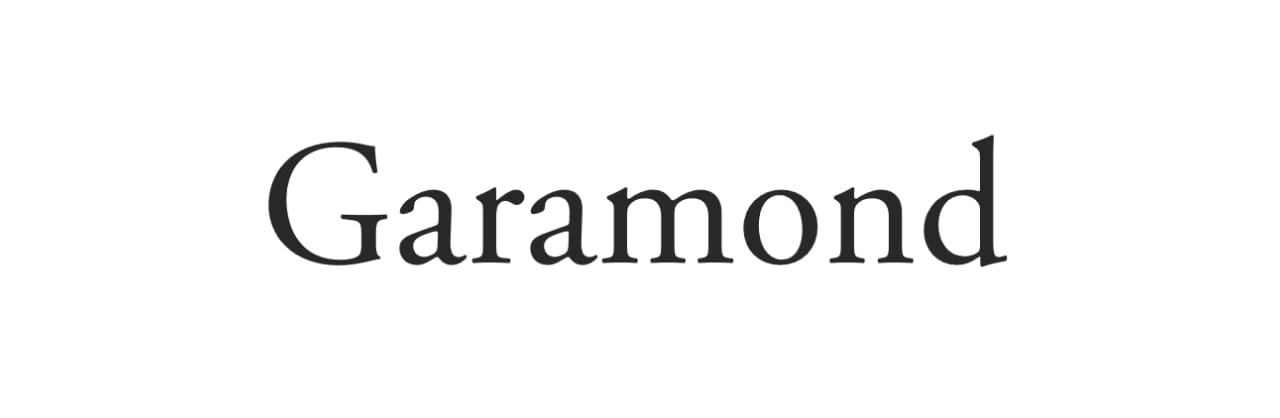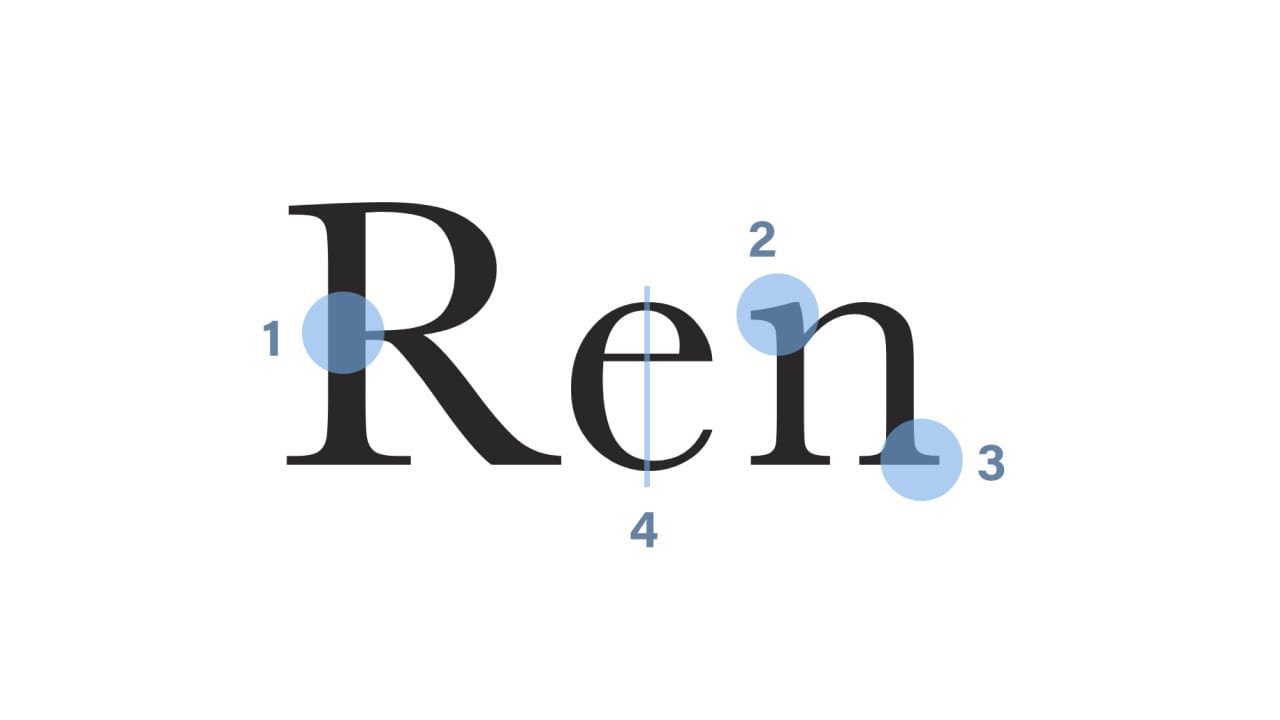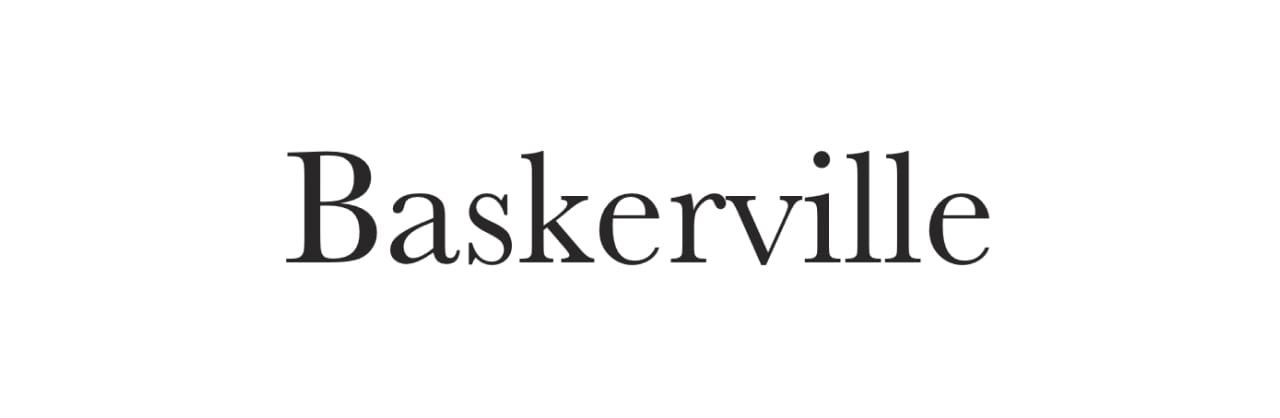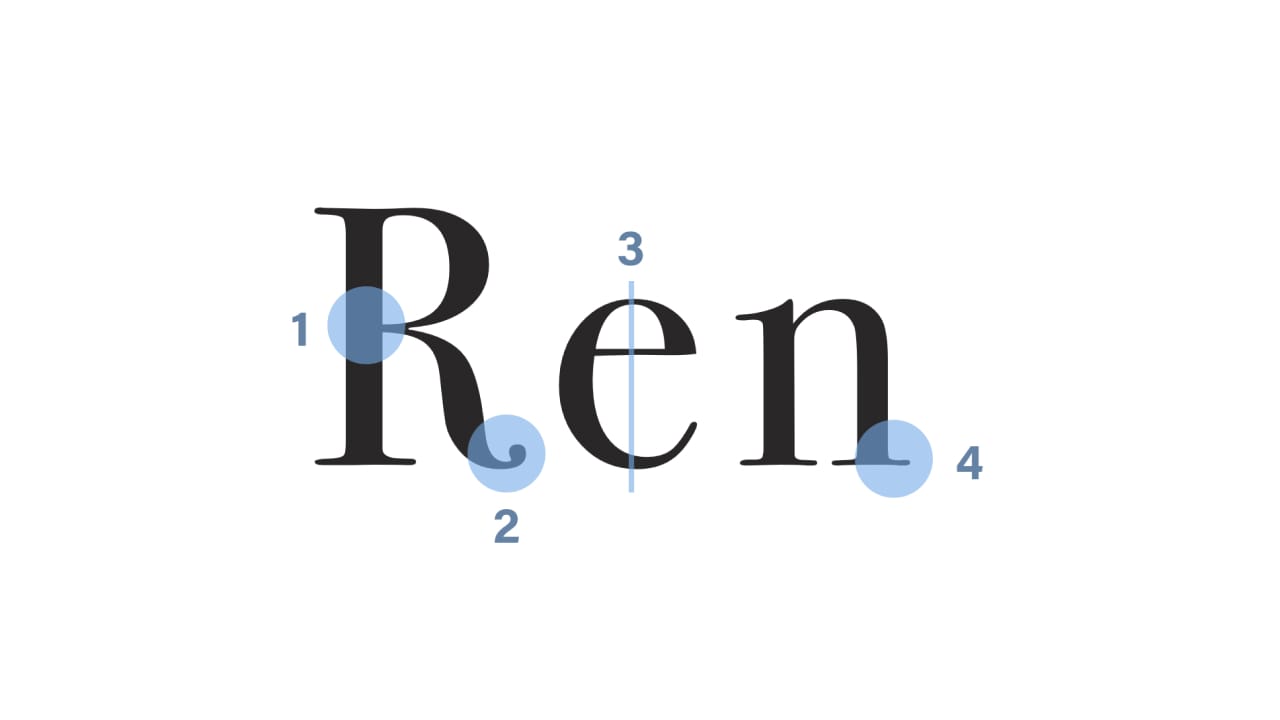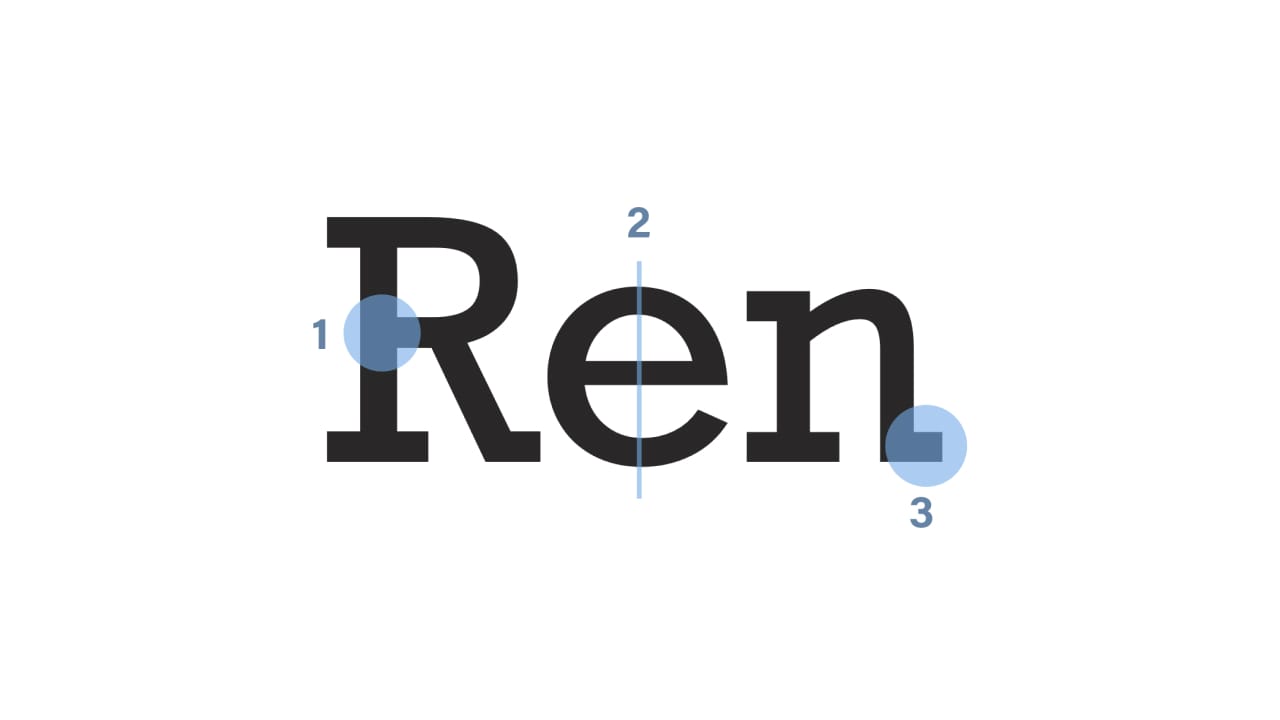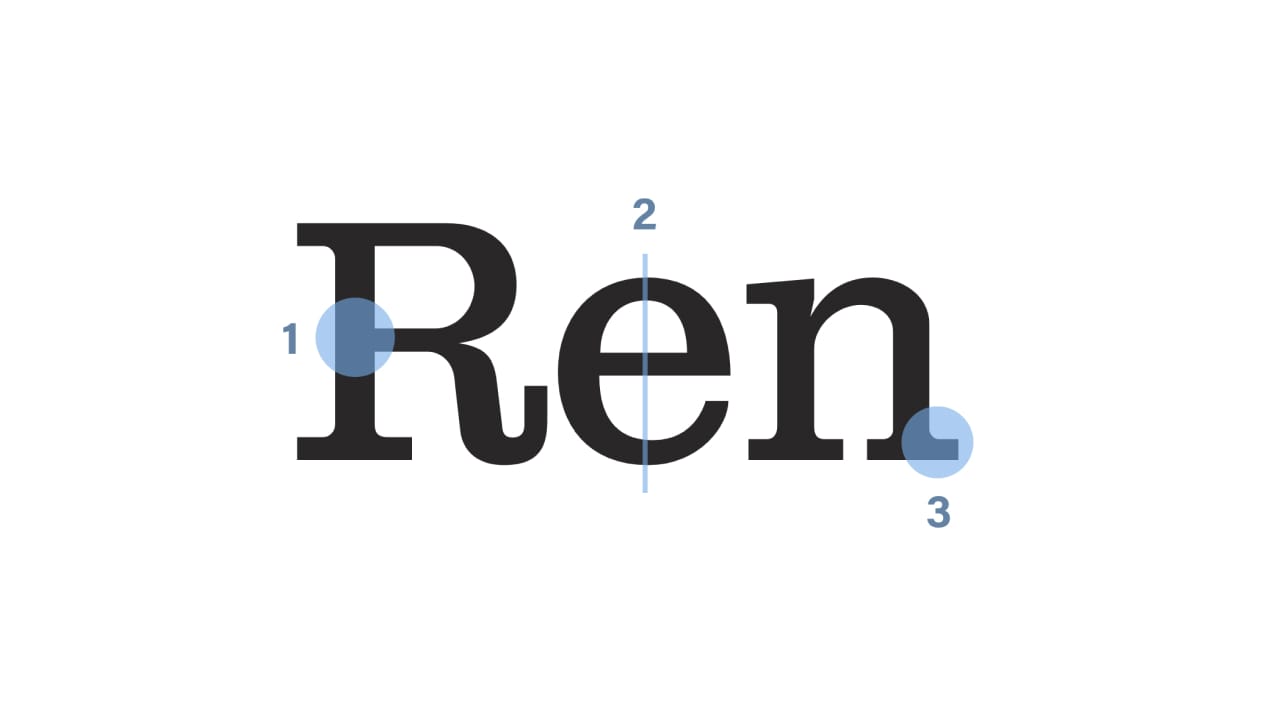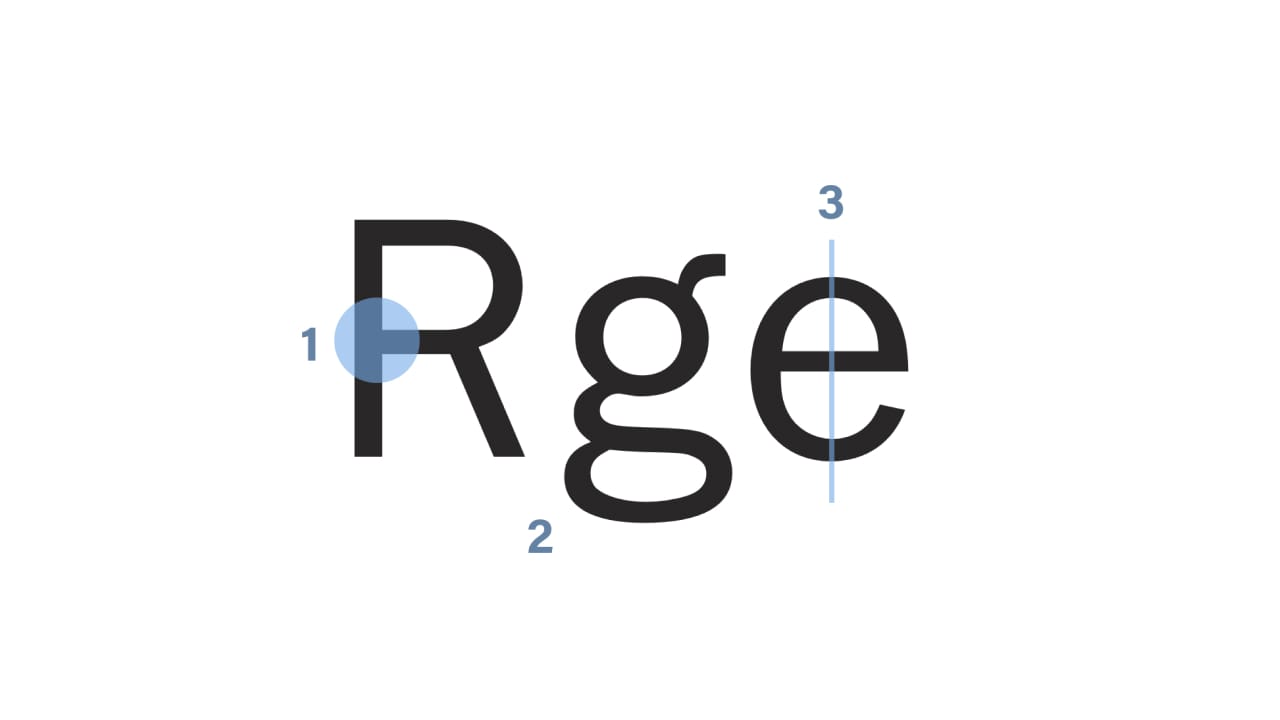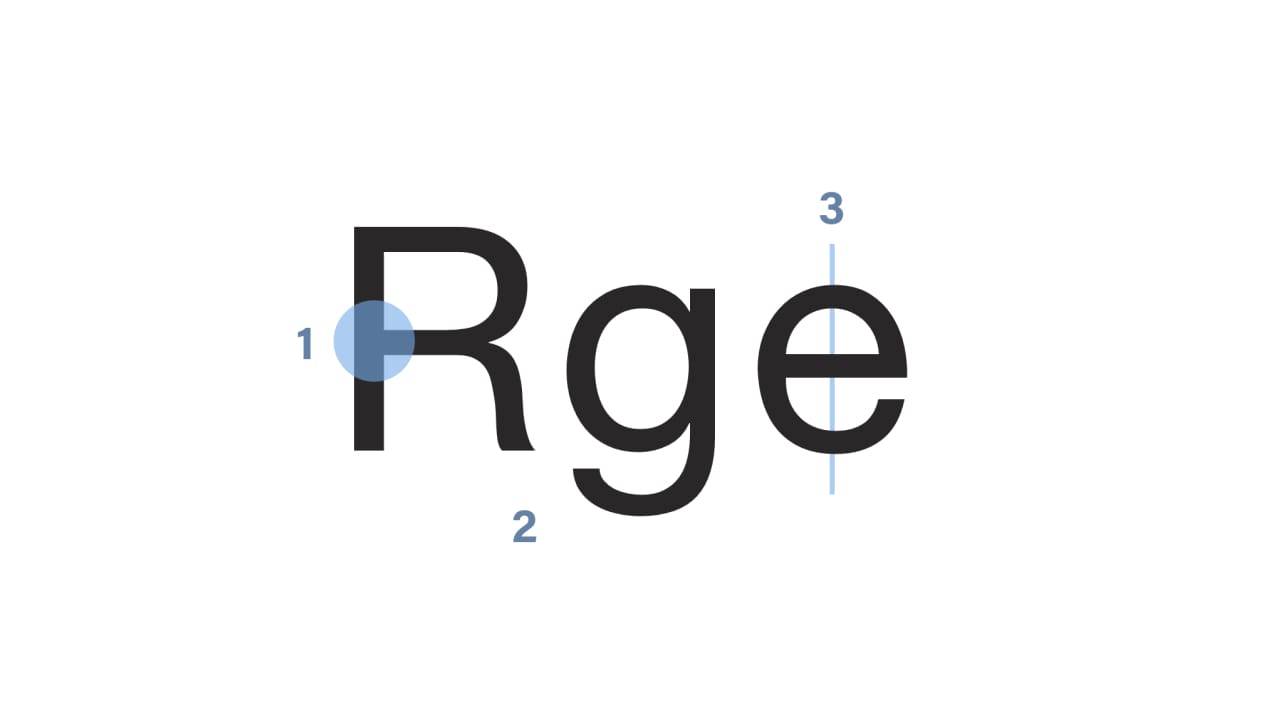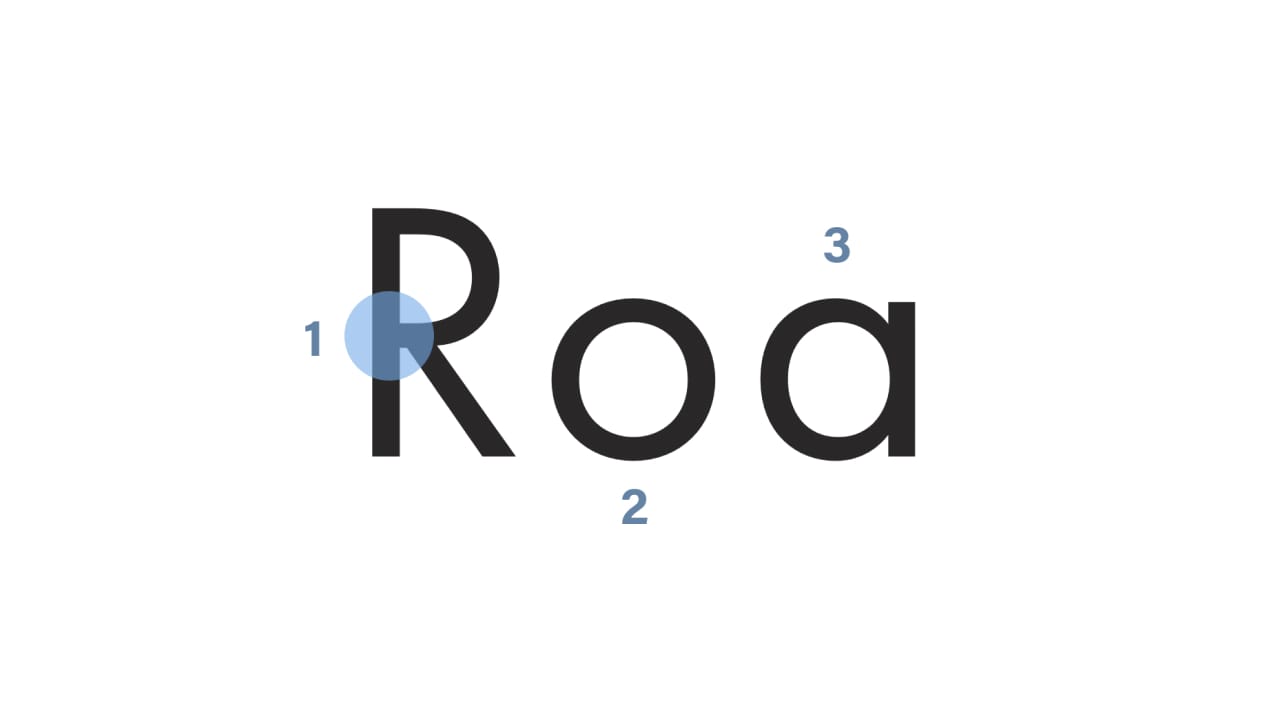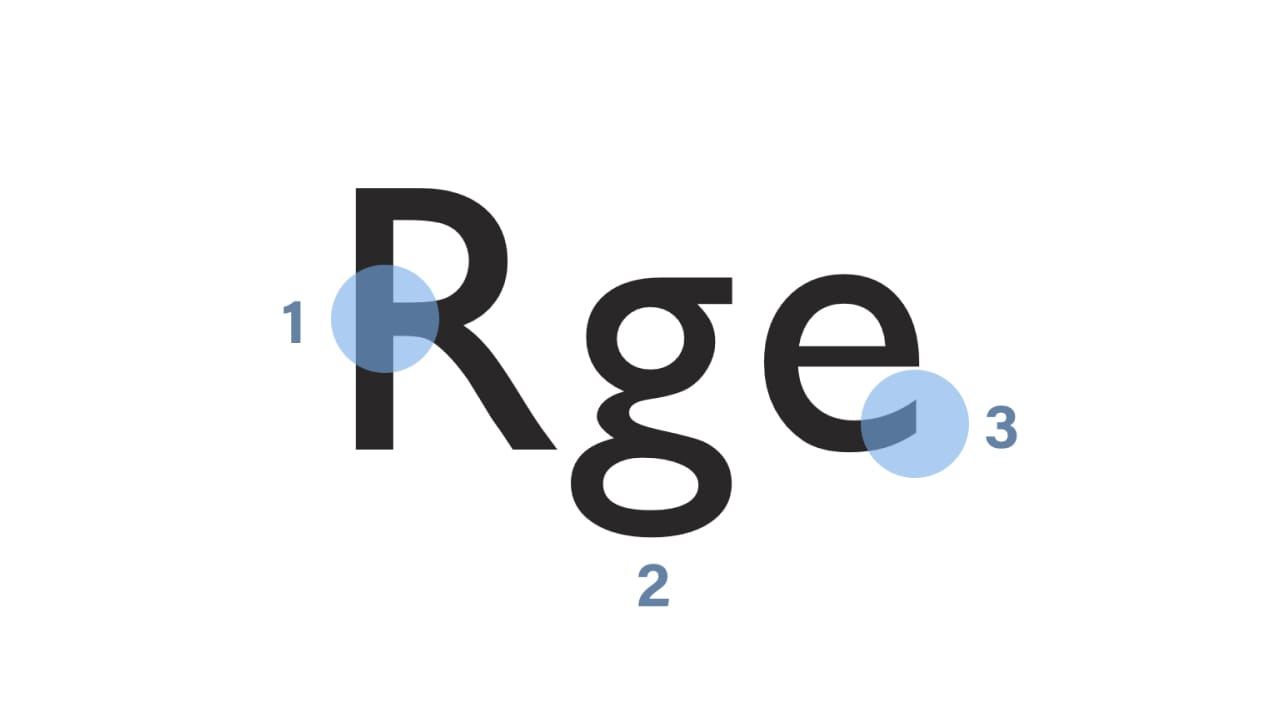
Telling font styles apart was one of the hardest things to do when I started working as a designer. Being self-taught, the only major difference I could see was that a font was either a serif or a sans-serif. But the more I explored, the more I realised how vast the universe of font styles actually is.
Now I know why recognising the style of a font is so hard. When it comes to typography, and especially when it comes to typefaces, it’s all in the details. It’s hard to even imagine how much work goes into designing a typeface and how much focus type designers put into tiny details that remain invisible to most people. So to find the clues to tell font styles apart, we need to learn to see these details. But first, why would anyone want to be able to recognise font styles? Why not just choose and combine fonts based on our gut feeling?
Well, you can do that. In fact, that’s what I did for a long time, especially at the beginning of my career. But I had a huge problem. I was never confident in my font decisions and I was never sure if the font combination that I designed works well together. Sure, you can copy others or use the most popular fonts based on classifications such as Typewolf’s Top 10 most popular typefaces of 2019. But doesn’t that lead to fonts being overused? Look at what happened to Helvetica, Gotham and Futura. These are the fonts that have been used so much that you can literally see them everywhere. And when that happens, they lose their identity. They become bland. Using a font that is very popular is a safe choice, but safe choices will only get you so far in terms of originality. When it comes to quality, do you want your typography to stand out or blend in?
This is where being able to recognise font styles comes in. When you’re able to do that, and when you know what the story behind a particular style is, then you can make better decisions. You can make an educated decision for your next font choice for the web design project you’re working on. You can better combine 2 or more font styles because you know which styles work well together and which don’t. Let’s take a look at the most common font styles as they appeared throughout history and see what defines these styles and the stories behind them.
Serif font styles
Old style
The first old-style typefaces appeared in the 15th century and it was the most fundamental change in style because they moved away from the blackletter style which was first introduced by Johannes Gutenberg and his movable type printing machine. Better tools and mostly improved skills of the punchcutters allowed the birth of this more refined style.
<strong>FIG 1</strong>: The main characteristics of the old-style typefaces.
FIG 1: The main characteristics of the old-style typefaces.
The contrast of strokes is low (1) and the hairlines are heavier than what we would see in high-contrast typefaces. Head serifs are angled (2), serifs are bracketed (3), the axis of curved strokes shifts to the left (4), and the x-height is relatively small. These styles are still very common in books as they’re traditional and evoke feelings of warmth and familiarity. Garamond, Caslon and Bembo are typical examples of this style.
<strong>FIG 2</strong>: Garamond (or in this particular example Adobe Garamond) is a typical example and one of the most iconic old-style typefaces.
FIG 2: Garamond (or in this particular example Adobe Garamond) is a typical example and one of the most iconic old-style typefaces.
Transitional
This is a style that moved further away from the styles mimicking the handwritten letterforms (Humanist and Old style). It was born in France in the 18th century, mostly defined by an Englishman John Baskerville but first became popular in the modern-day United States. A post on I Love Typography describes the Romain du Roi typeface (King’s Roman, the very first typeface of this style) like this1:
The Romain du Roi marked a significant departure from the former Old Style types and was much less influenced by handwritten letterforms. Remember, this is the Age of the Enlightenment, marked by resistance to tradition, whether that be art, literature, philosophy, religion, whatever; so it’s no surprise that this same era should give birth to radically different types.
<strong>FIG 3</strong>: The main characteristics of the transitional typefaces.
FIG 3: The main characteristics of the transitional typefaces.
The contrast in strokes is noticeably higher (1), the head serifs are oblique (2), the serifs are still bracketed (3), and the strokes have vertical stress (4)—this is where the departure from the handwritten letterforms is the most obvious. Baskerville is by far the most iconic example of a transitional typeface.
<strong>FIG 4</strong>: Baskerville is a perfect example of the transitional style of typefaces.
FIG 4: Baskerville is a perfect example of the transitional style of typefaces.
Neoclassical & Didone